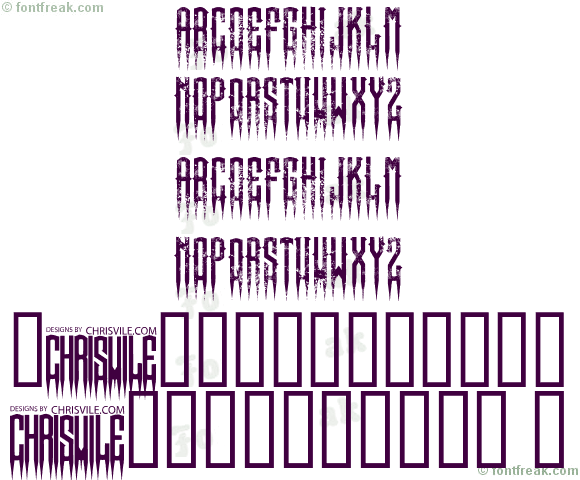
XSpiked Regular
XSpiked Regular is a striking display font designed by Chris Vile, showcasing a unique blend of decorative elements that immediately capture attention. As a display font, it falls into a category that emphasizes visual impact, making it perfect for projects that require a bold statement. The font features an intriguing design with sharp, pointed strokes that create a spiky appearance, enhancing its overall character. The varying stroke weights contribute to a dynamic look, while the spacing between letters ensures legibility despite its artistic flair.
This font is ideal for a variety of specific use cases. It can be effectively utilized in movie posters, where its dramatic style can evoke excitement and intrigue. Restaurant menus can benefit from XSpiked Regular by adding a touch of personality, especially in establishments that focus on edgy or modern cuisine. Additionally, it serves well in promotional materials for music festivals or events, where an unconventional aesthetic is desired. Graphic designers will find this font a valuable asset for creating eye-catching logos or branding elements, while content creators can use it in social media graphics to stand out in a crowded digital space.
The target audience for XSpiked Regular includes graphic designers, small business owners, and content creators looking to make an impact. Its unique visual style can elevate any project, helping it to resonate more effectively with viewers.
What sets XSpiked Regular apart is its boldness and versatility. It commands attention without overwhelming the viewer, making it a perfect choice for those seeking to blend creativity with functionality. For anyone interested in exploring this distinctive typeface, an XSpiked Regular font free download is an excellent opportunity to enhance your design toolkit.